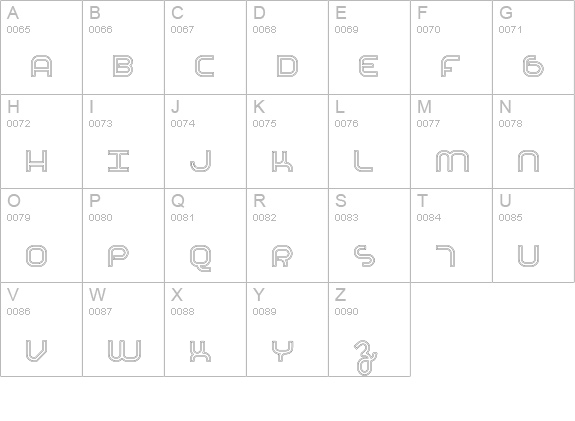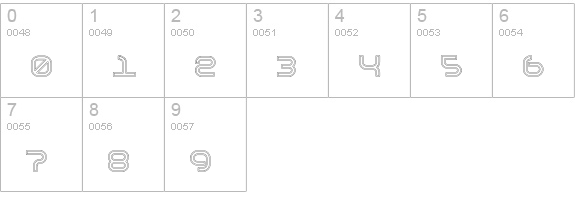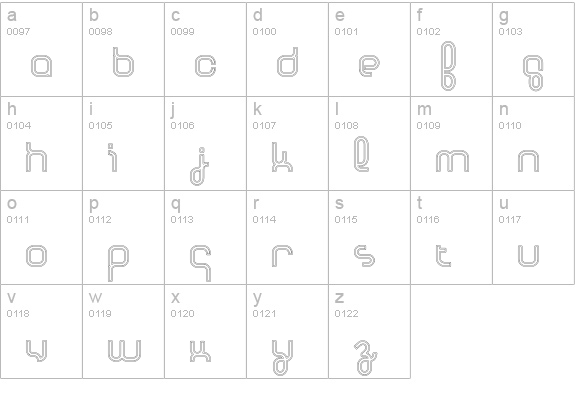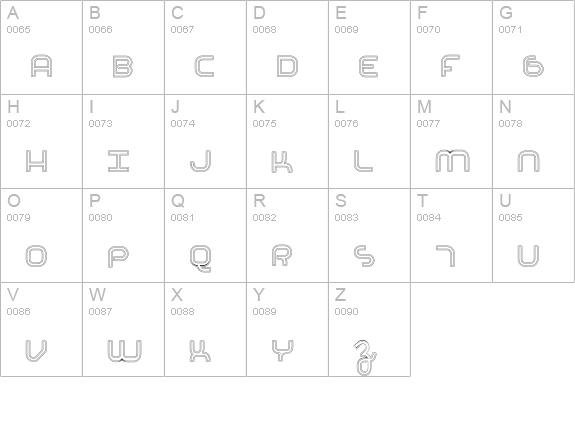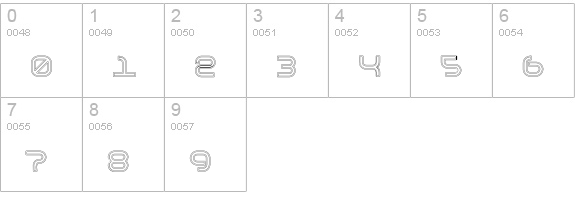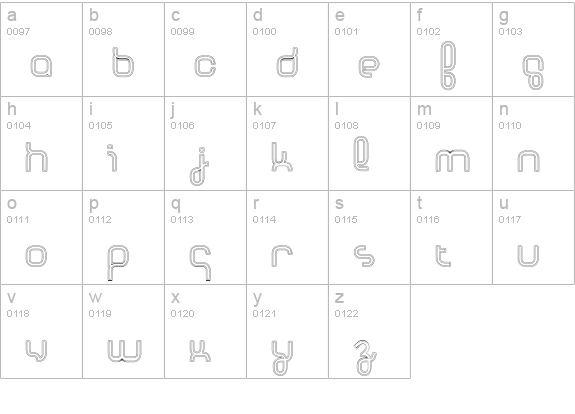
Basis-DoubleOutline Font Details
Basis-DoubleOutline font is a modern and stylish typeface that exudes elegance and sophistication. With its unique double outline design, this font is sure to make a statement in any project. The clean lines and sharp edges of Basis-DoubleOutline font give it a sleek and contemporary look that is perfect for a wide range of applications. Whether you're designing a logo, creating a poster, or working on a branding project, Basis-DoubleOutline font is a versatile choice that will help your text stand out. The font is free to download at FontsMarket.com, making it accessible to all designers looking to add a touch of flair to their work. Don't miss out on this opportunity to elevate your designs with the stylish Basis-DoubleOutline font.